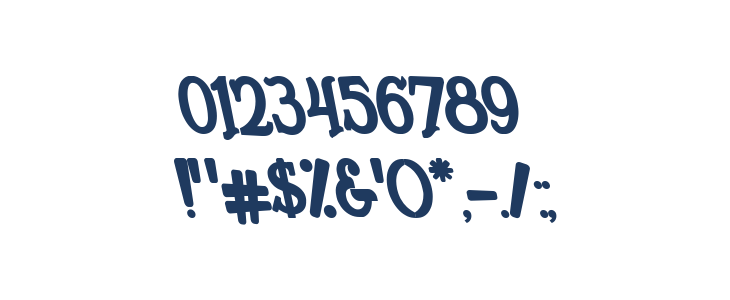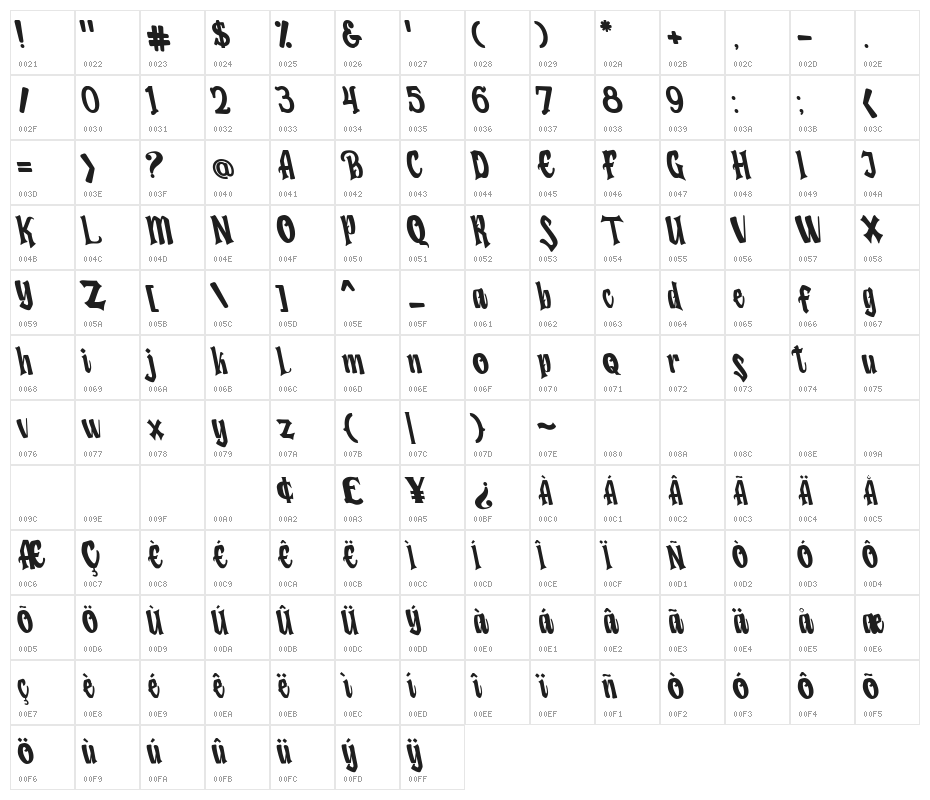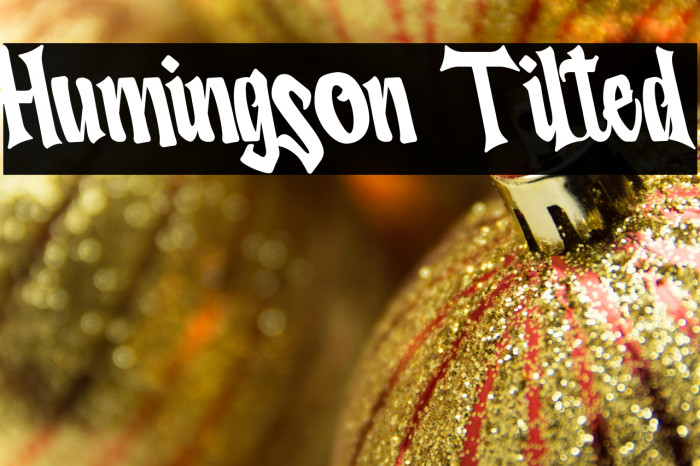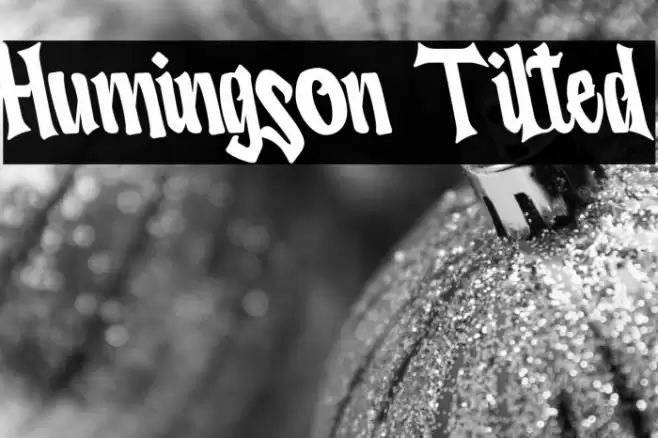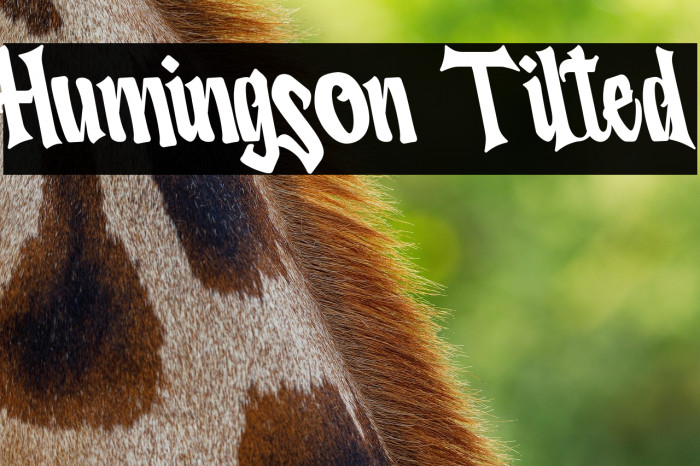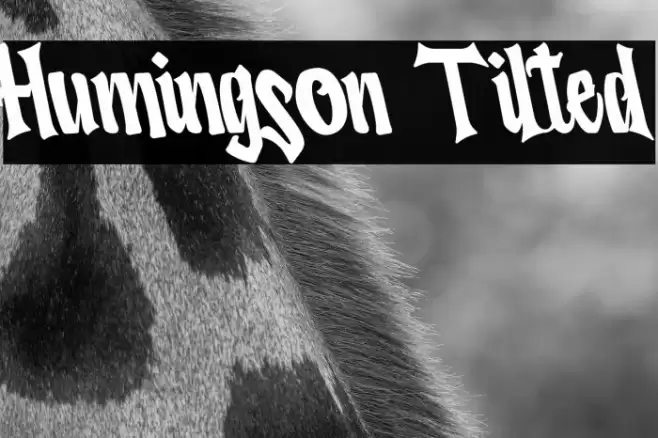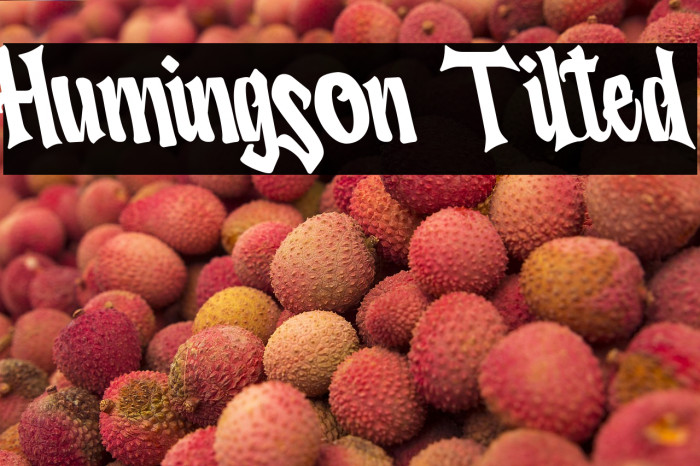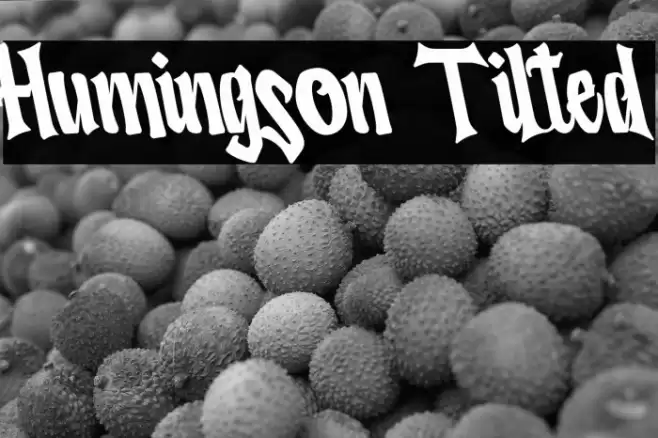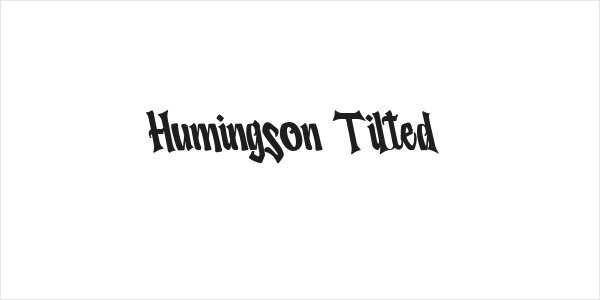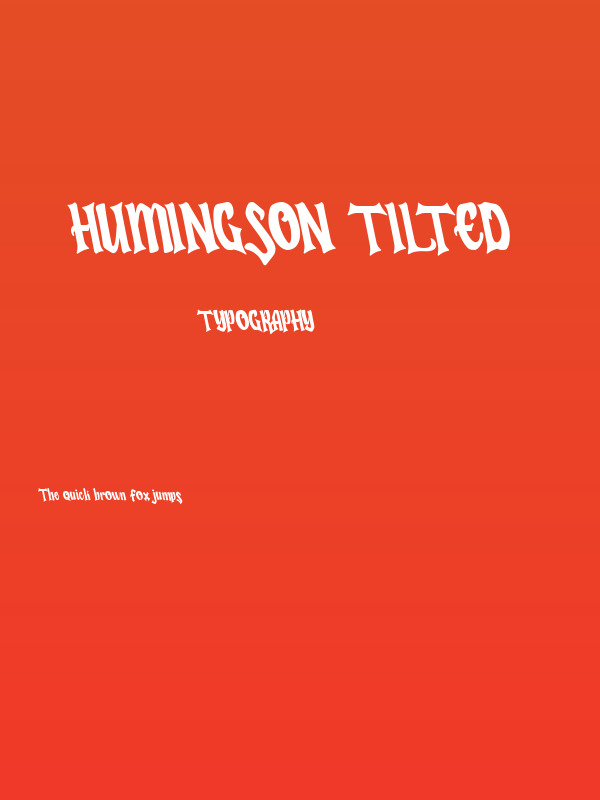
Humingson Tilted Font
Humingson Tilted Description
This font features a bold and dynamic style with a distinct tilt, giving it a sense of movement and energy. The characters are thick and robust, with sharp angles and a slightly gothic influence. The uppercase letters are particularly striking, with a strong presence that commands attention. The lowercase letters maintain the boldness but with a slightly more playful touch. Numbers and special characters are consistent with the overall style, ensuring a cohesive look across all text. This font is ideal for making a statement, with its eye-catching design and unique flair.
| Overall Style | Gothic, Decorative |